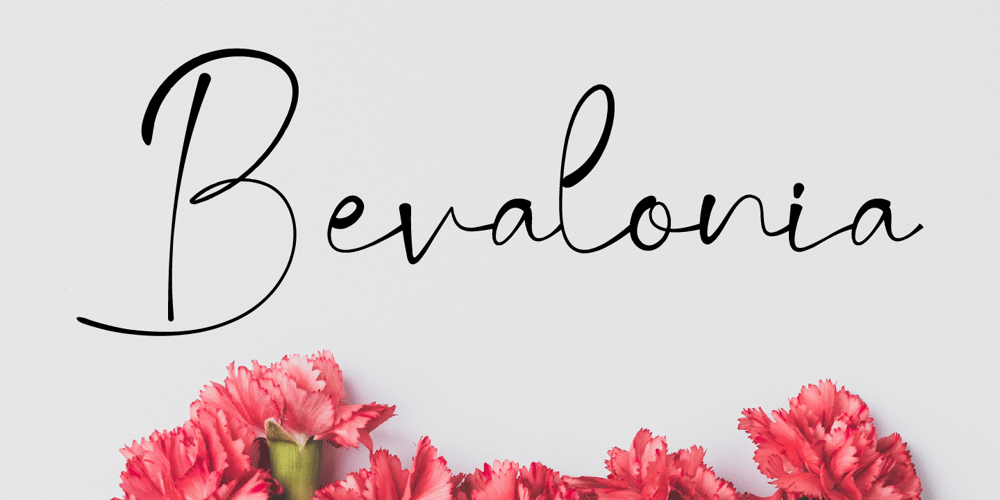
Bevalonia Font Family was designed by Prio Nurokhim Aji and published by Prioritype. Bevalonia contains 1 styles and family package options. Hello everyone, this is a handwritten font that comes with a beautiful, elegant and very beautiful impression, especially with some very charming ligatures. You can apply this font in various print and digital media such as logos, wedding invitations, craft products, promotions on social media, business cards and much more. For reference, see preview.Features:-Uppercase-Lowercase-Numeral-Punctuation-Multilingual-Ligature